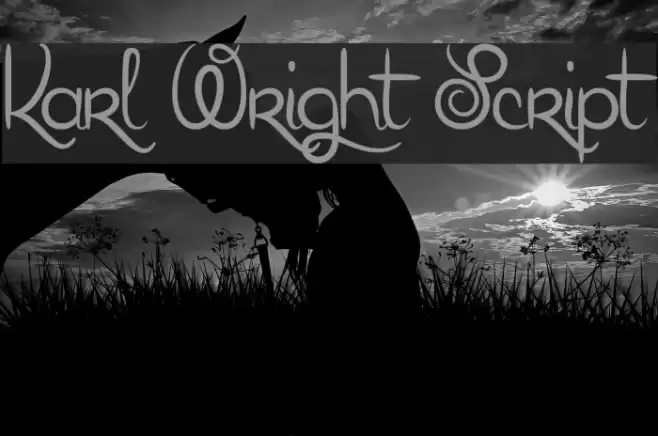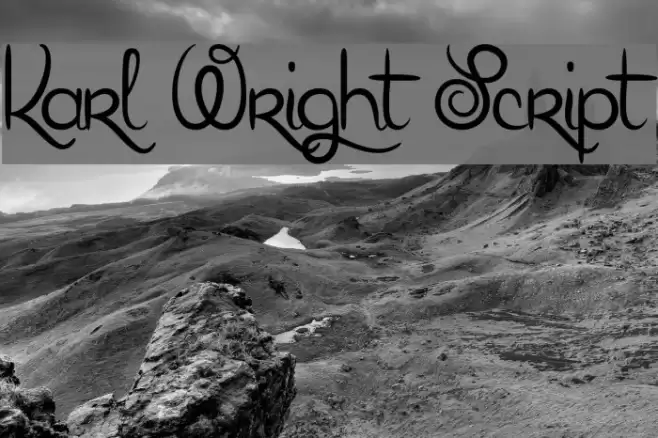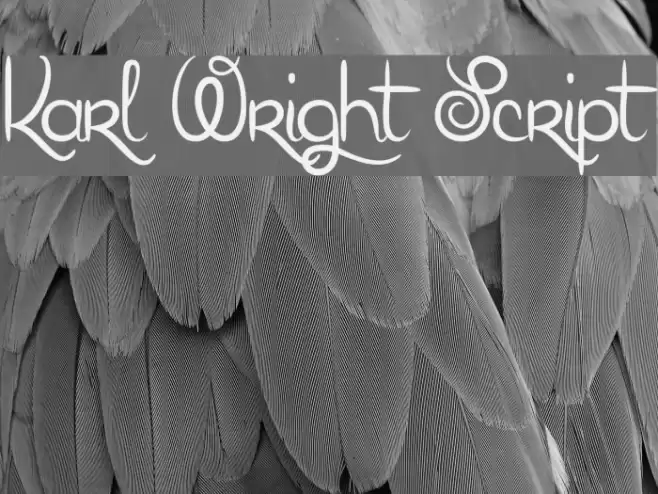
Karl Wright Script Font
Karl Wright Script Description
This font features an elaborate and artistic script style, characterized by its flowing, interconnected letters and decorative swashes. The uppercase letters are particularly ornate, with extended strokes and loops that give a sense of elegance and flair. The lowercase letters maintain a consistent style, with smooth curves and a slightly more subdued decoration compared to the uppercase. The numerals and special characters follow the same aesthetic, ensuring a cohesive look throughout. This font is ideal for projects that require a touch of sophistication and creativity, such as invitations, branding, and artistic designs.
An elegant and decorative script font with flowing, interconnected letters from Uncategorized fonts.